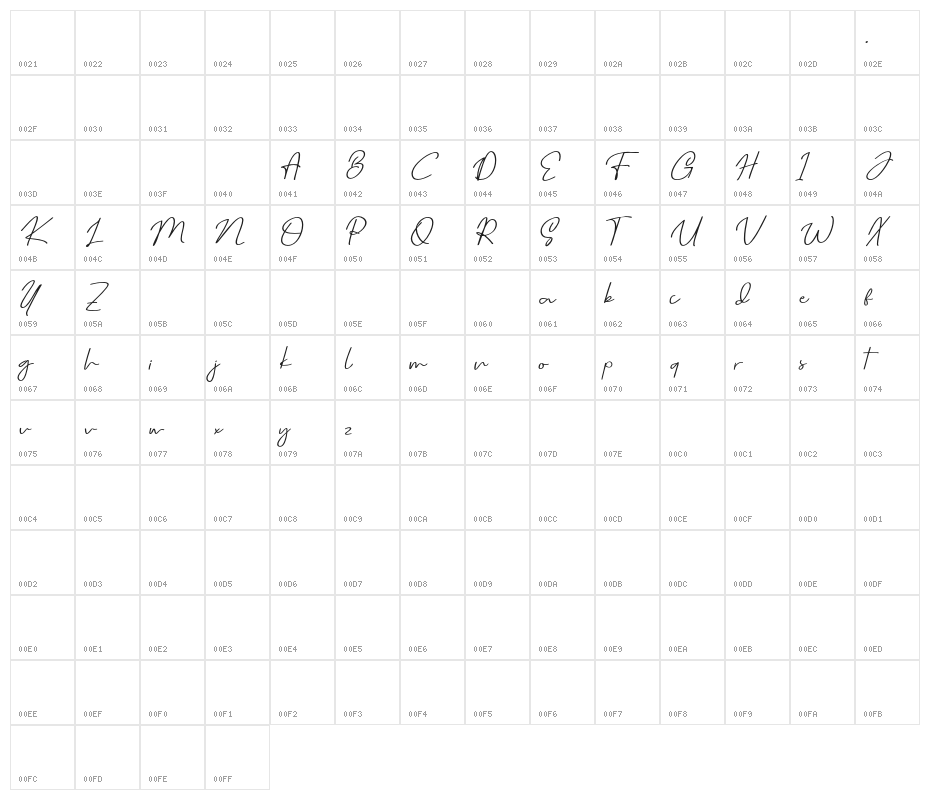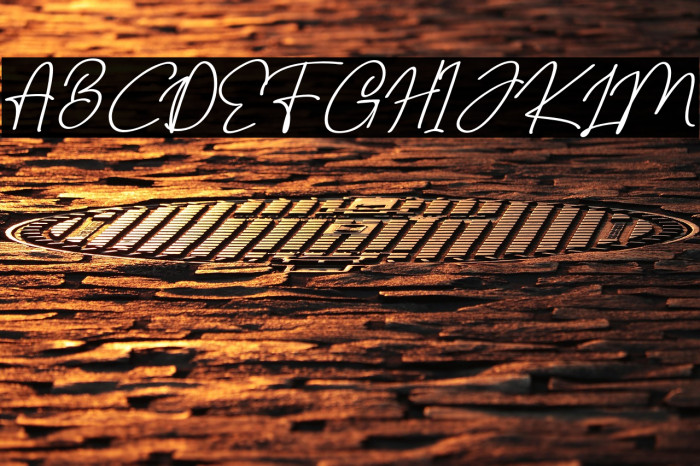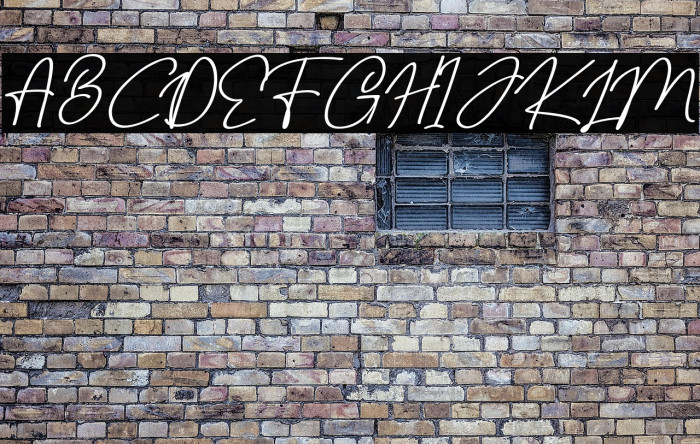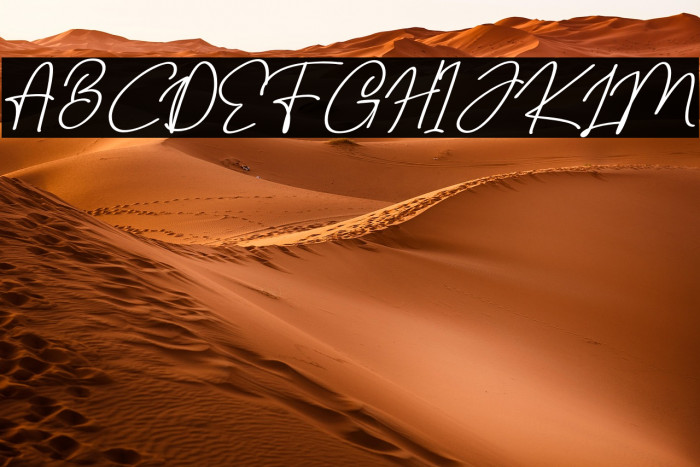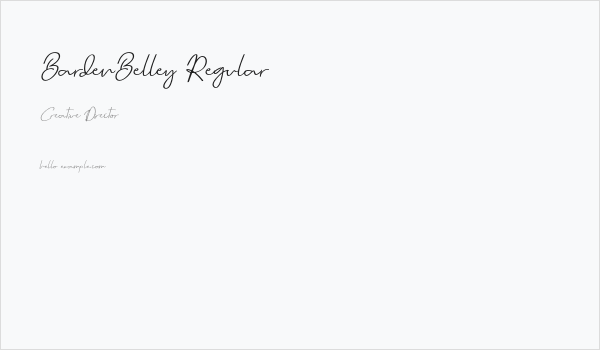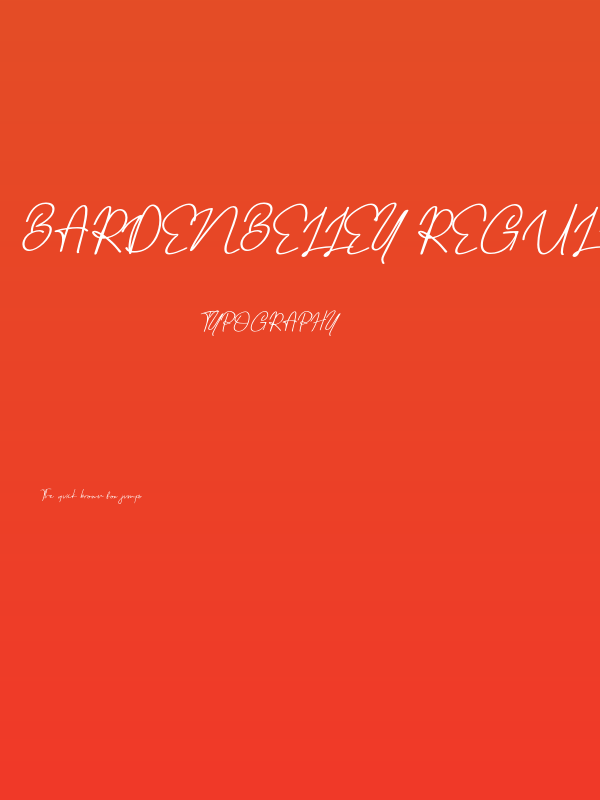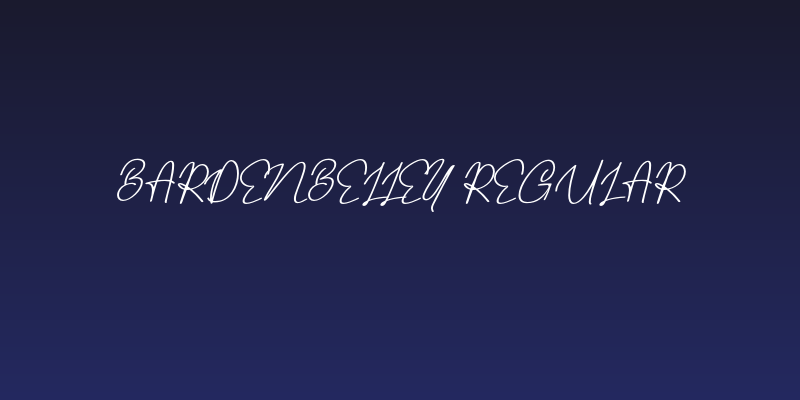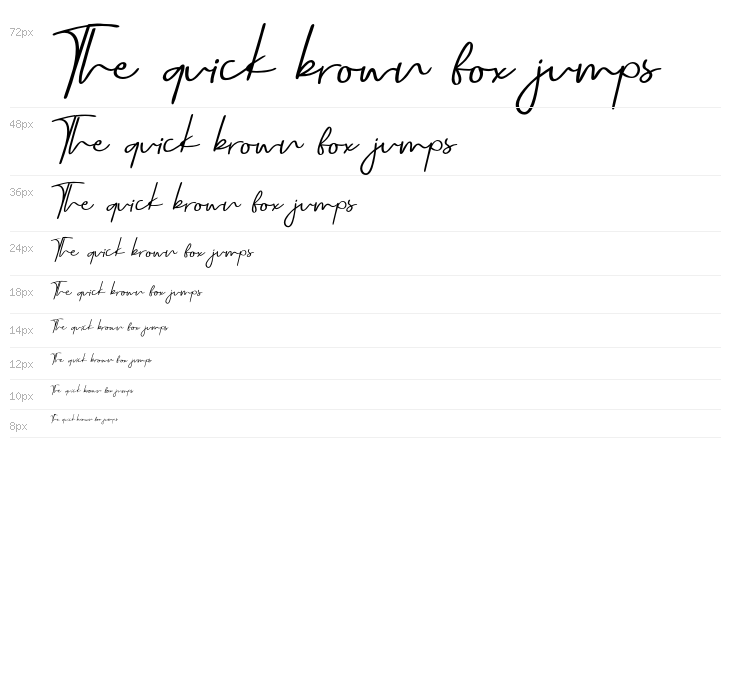
BardenBelley-Regular Font
BardenBelley-Regular Description
This font features an elegant, flowing script style that mimics the fluidity of handwriting. The uppercase letters are tall and graceful, with sweeping curves and loops that give them a sense of movement. The lowercase letters maintain a consistent style, with smooth connections and rounded forms that enhance readability. The overall appearance is sophisticated and artistic, making it suitable for formal invitations, branding, and decorative purposes. The characters are well-spaced, allowing for clear legibility while maintaining the script's inherent charm.
Overall StyleElegant, Artistic
Use CaseInvitations, Branding, Decorative
Proposed ProjectsIdeal for wedding invitations, branding, greeting cards, and decorative designs.